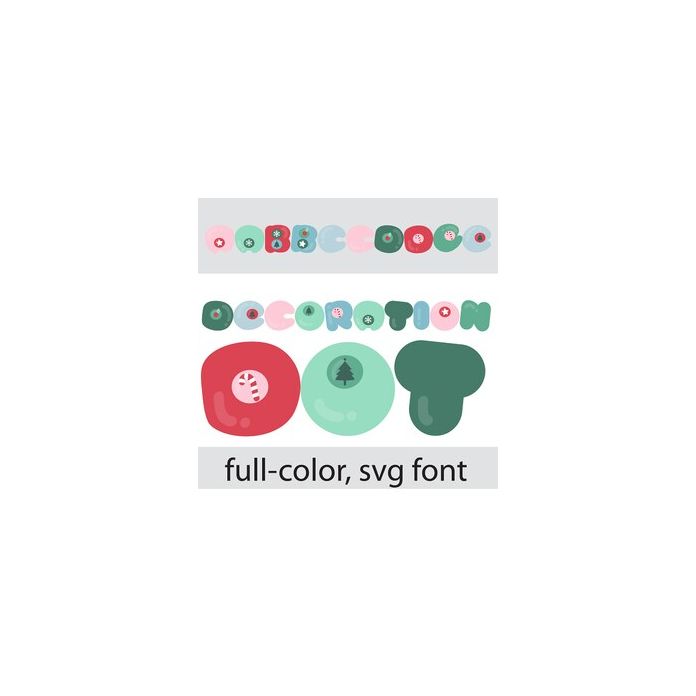
This full-color font features rounded, full lettering with adorable central, decoration dots in a Christmas color palette. There is an alt case w/ additional colors you can access through your system or Silhouette's glyph map.